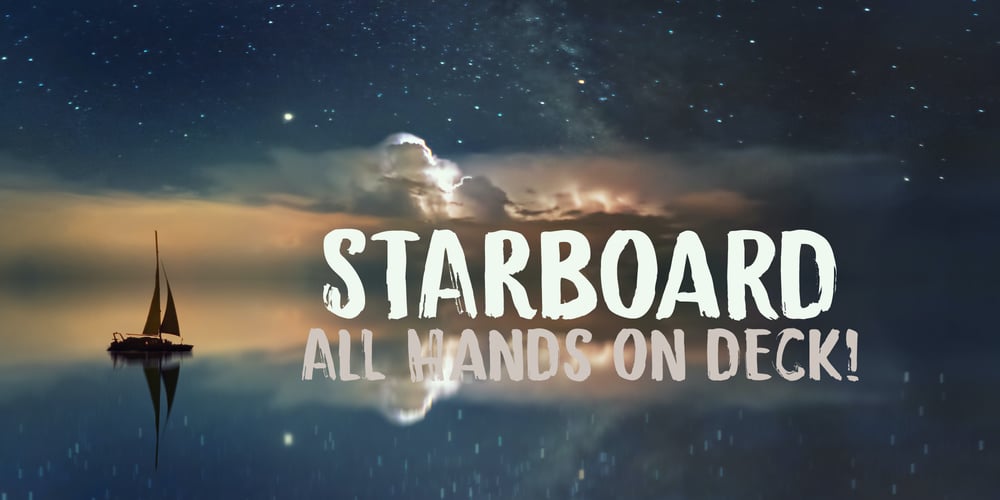
Starboard Font Family was designed by published by Hanoded. Starboard contains 2 styles and family package options. The term starboard derives from the Old English steorbord, meaning the side on which the ship is steered. Before the steering wheel, boats were steered by an oar at the stern of the ship. Since most sailors were right handed, this is where you would find your steering oar!Starboard font is a rough, handmade, brushy kinda font. It was, of coarse, made with my favourite cheep brush and Chinese ink – resulting in a slightly eroded looking font.Starboard comes with all the trimmings, including double letter ligatures for the lower case.